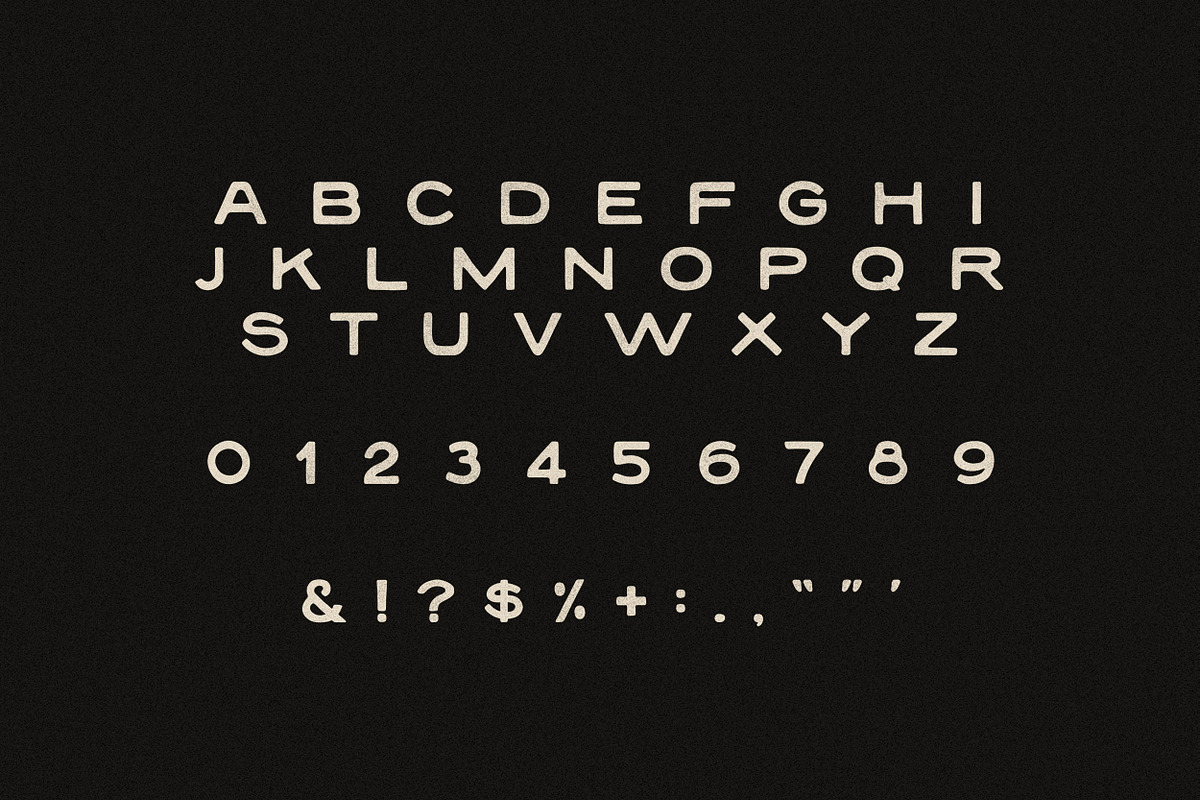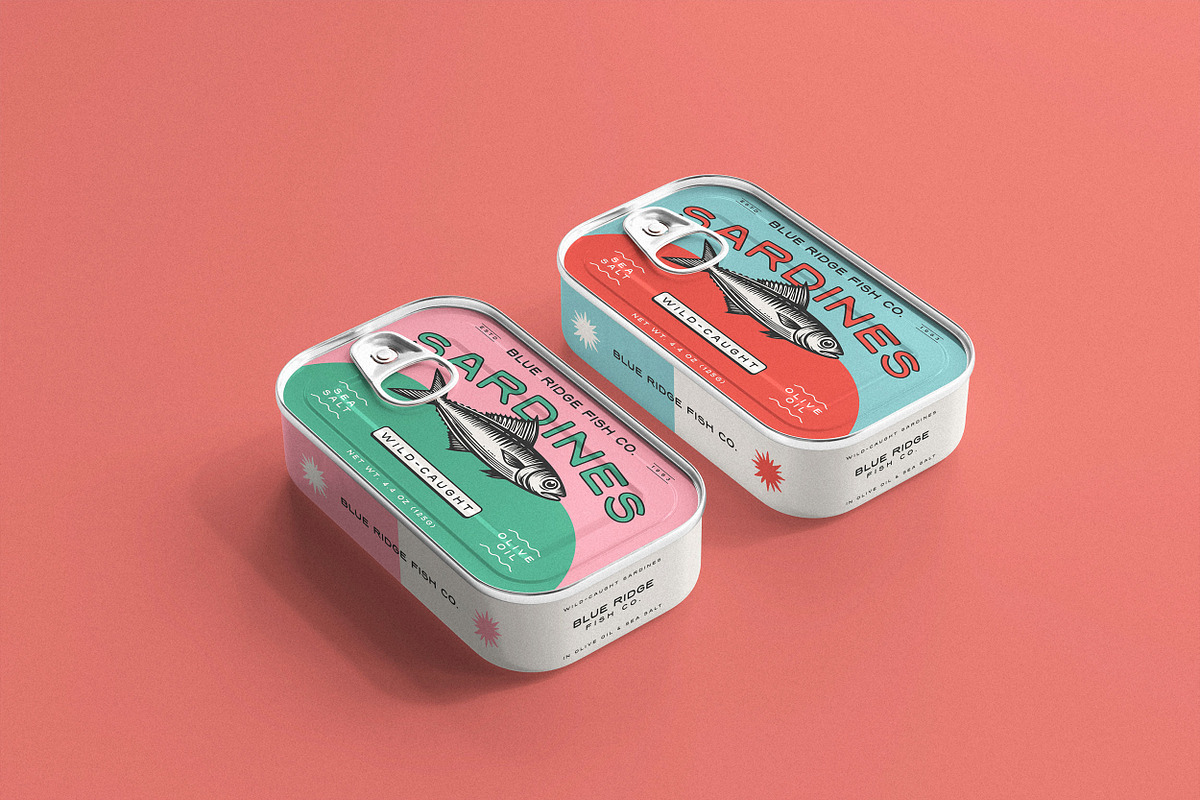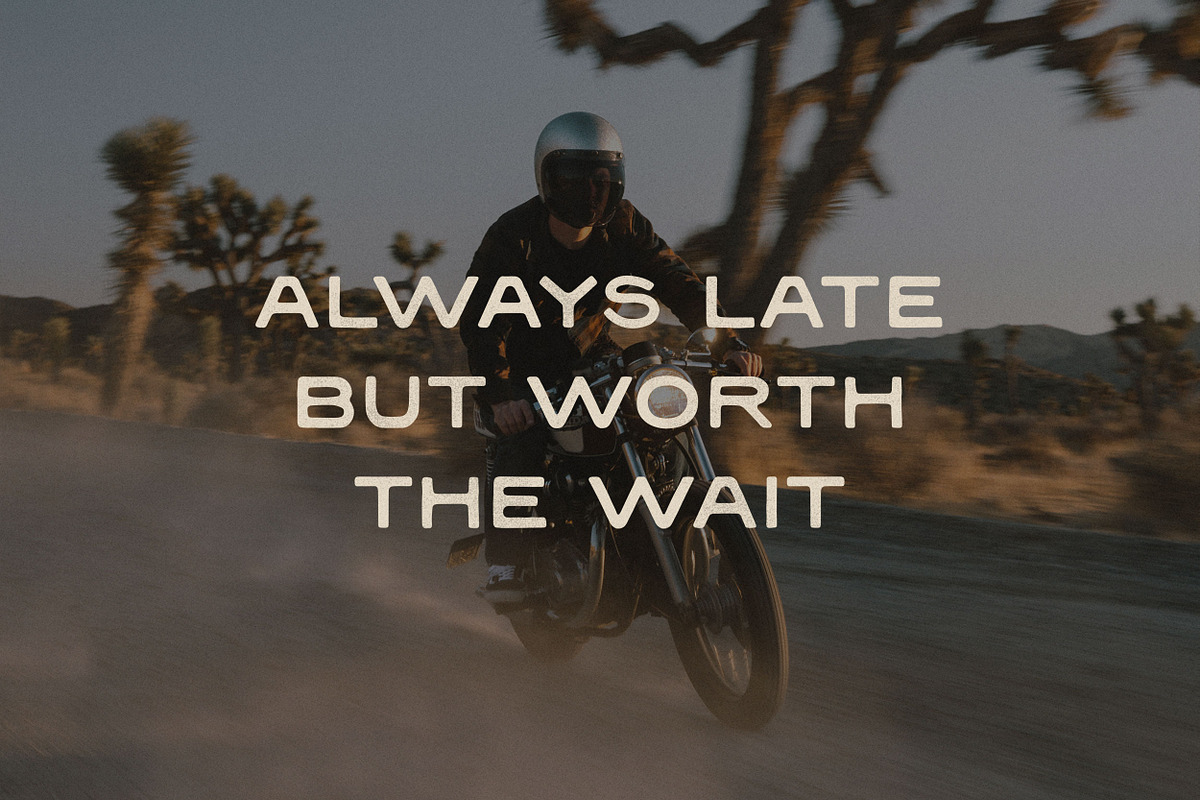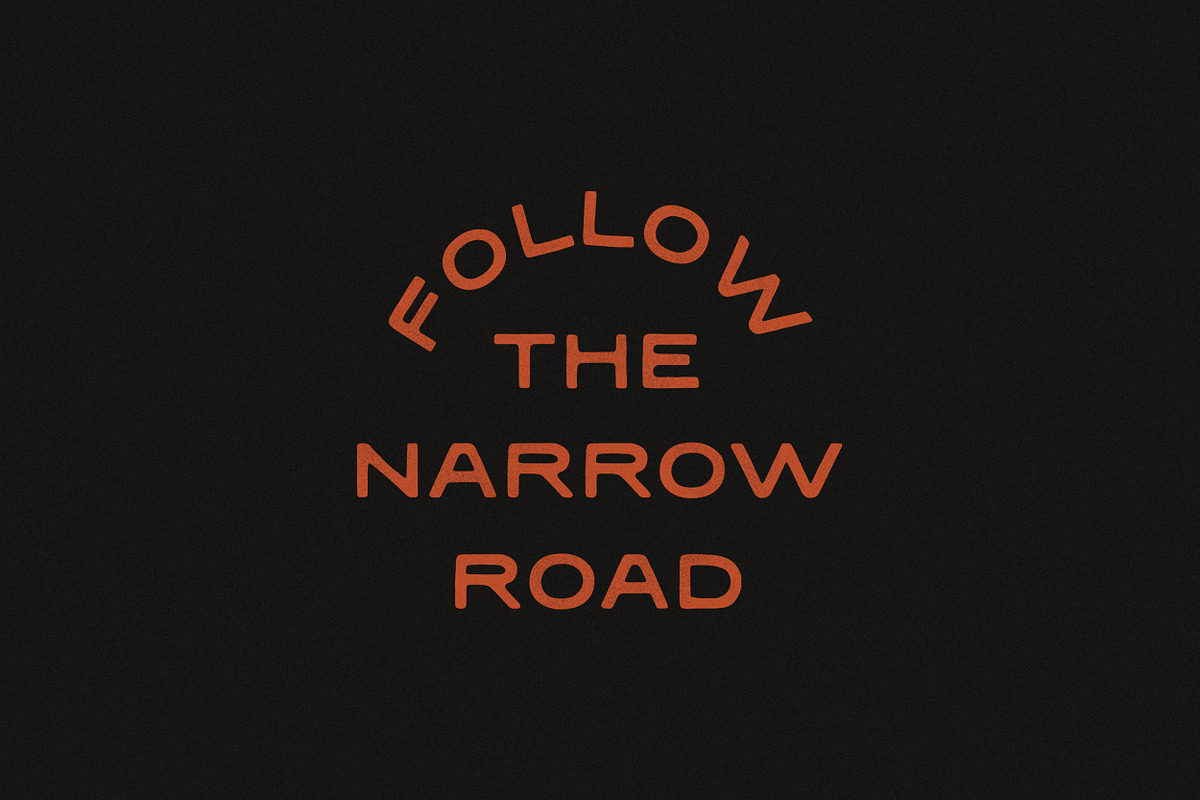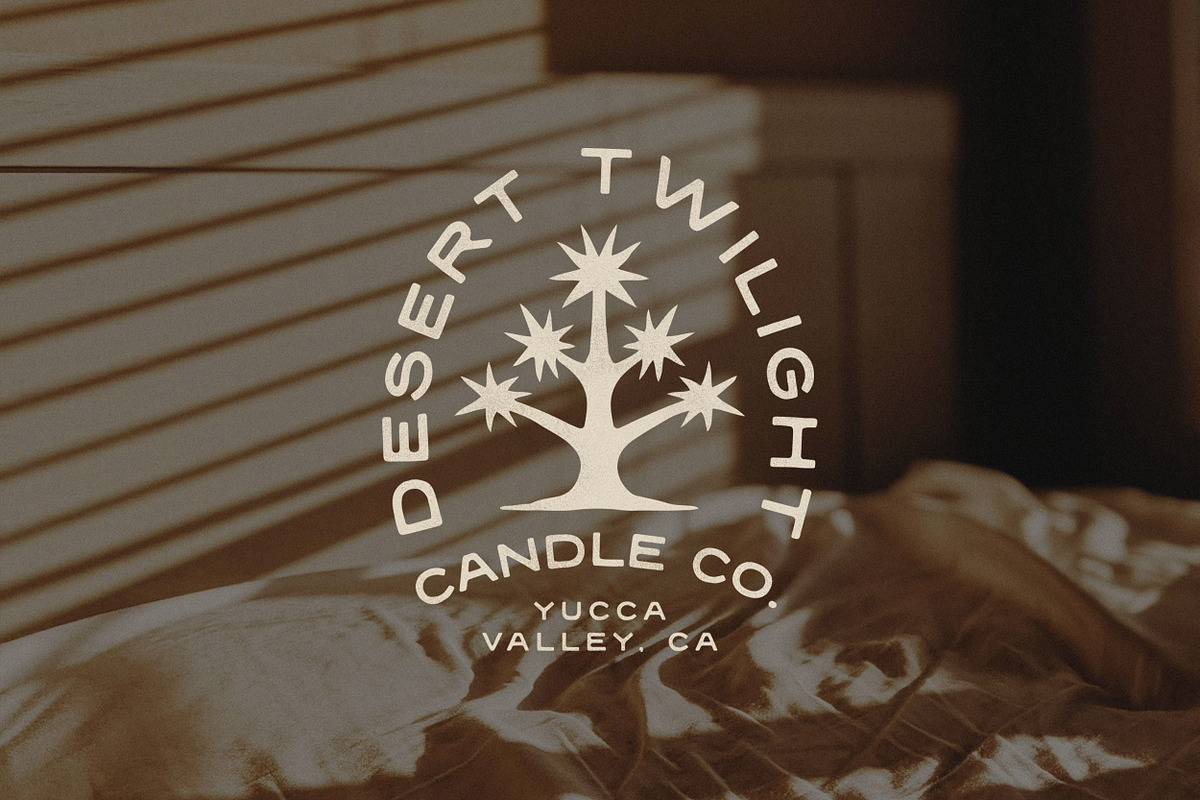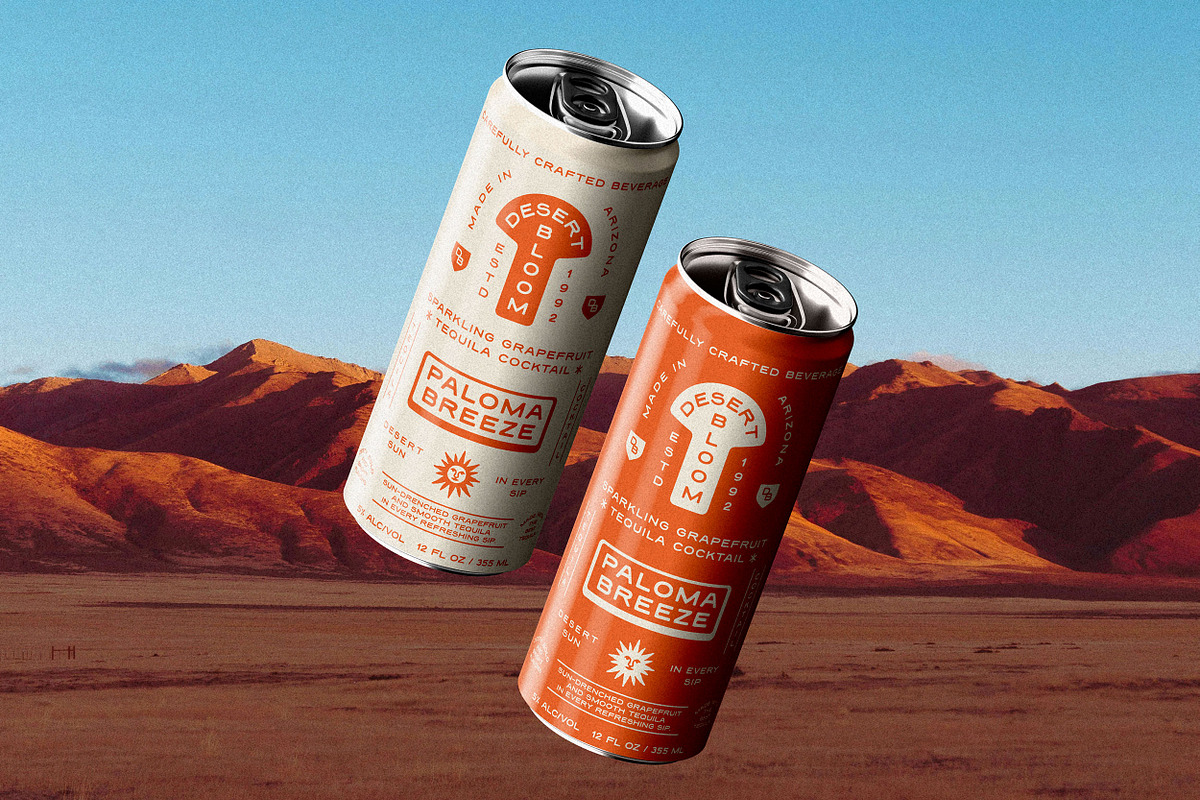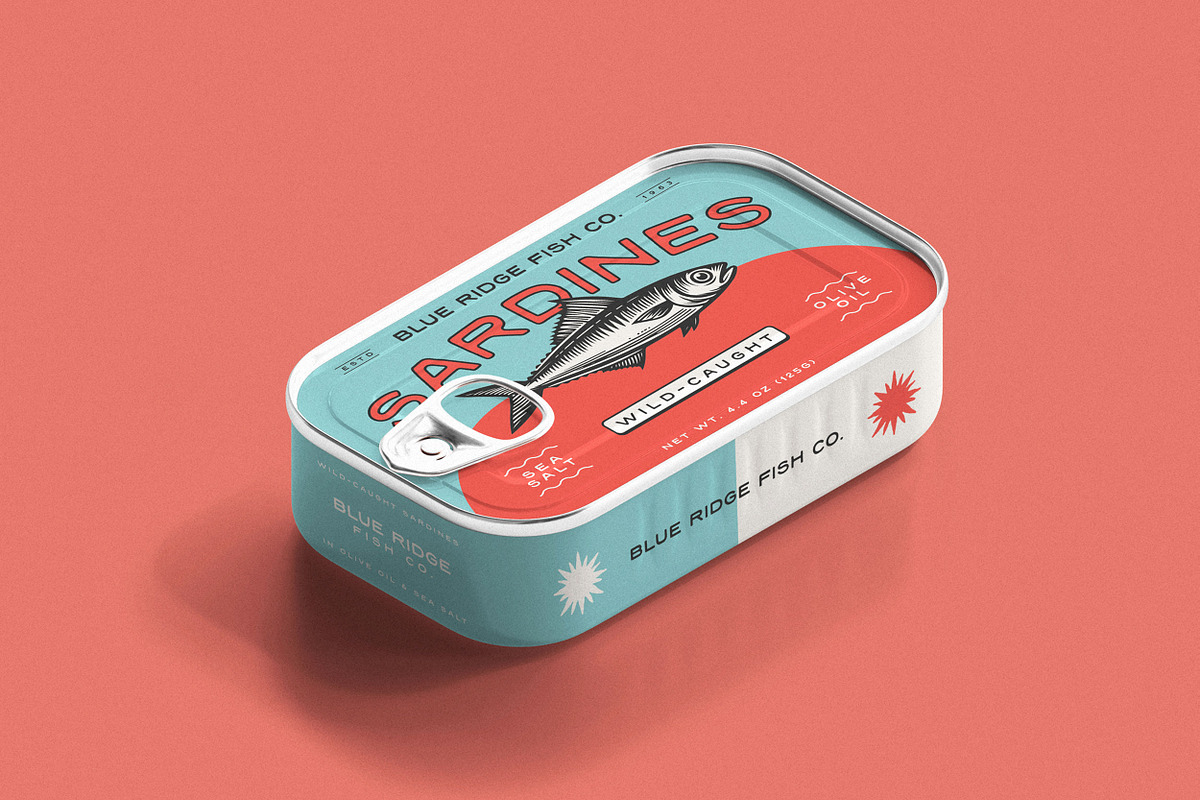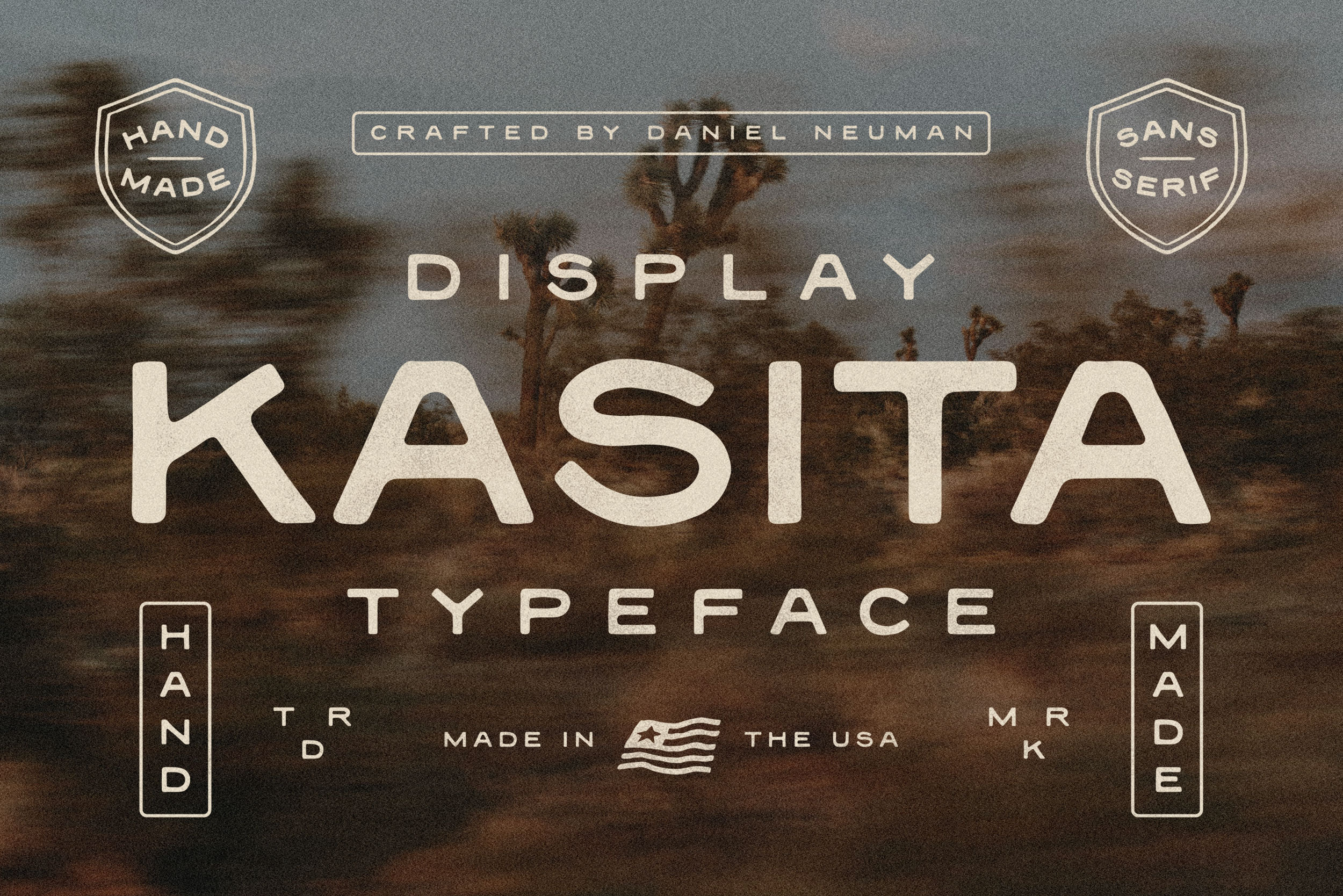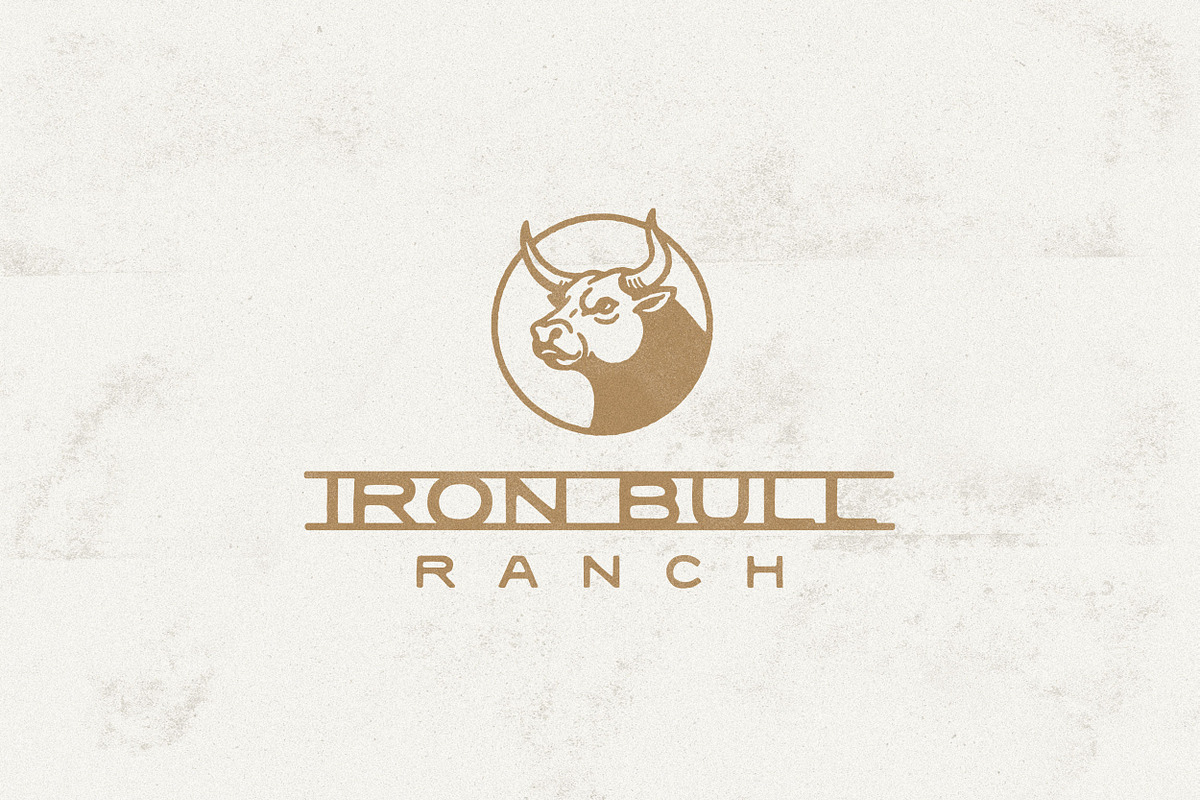
Kasita | Handmade Display Font
Kasita is a hand-drawn typeface inspired by vintage packaging. It's perfect for adding a touch of Southwest vintage charm to logos, packaging, apparel, and badges. Embrace this sans-serif's unique, hand-drawn quality and elevate your designs with its authentic, nostalgic appeal.
Contains single-case A-Z, numbers 0-9 and basic punctuation.